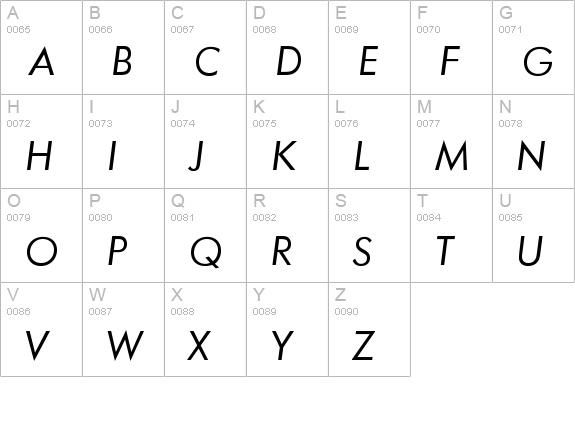
Futura Book Italic Font Details
Futura Book Italic is a comfortable, highly readable, italic variant in the Futura typeface family \xE2\x80\x94 well suited to long-form body text, articles, and editorial content.
Futura Book Italic font is a sleek and sophisticated typeface that exudes modernity and elegance. Its slanted design adds a touch of flair and dynamism to any text, making it perfect for conveying a sense of style and sophistication. The italicized characters of Futura Book Italic are beautifully crafted, with subtle curves and flowing lines that create a sense of movement and grace. This versatile font is ideal for a wide range of design projects, from branding and advertising to editorial and web design. Its clean and timeless appearance makes it a popular choice for conveying a sense of professionalism and refinement. Best of all, Futura Book Italic font is available for free download at FontsMarket.com. This means you can easily access and use this stunning typeface in your projects without any cost, making it a valuable addition to your font collection. Whether you're a seasoned designer or just starting out, Futura Book Italic font is sure to elevate your designs and make a lasting impression.